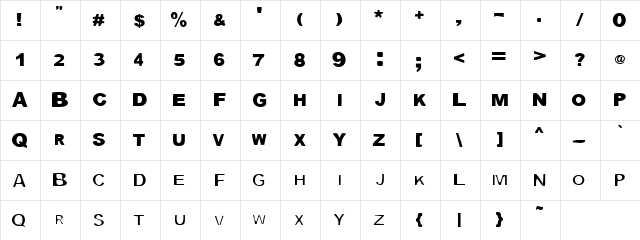
Blockquote Black
| Foundry | Meir Sadan |
| Designer | Meir Sadan |
Design Context for Blockquote Typeface
Blockquote takes a measured approach to typography — its balanced proportions and neutral character make it a reliable workhorse for both digital and print work.